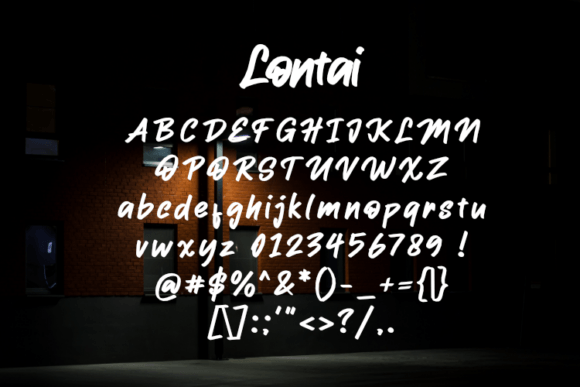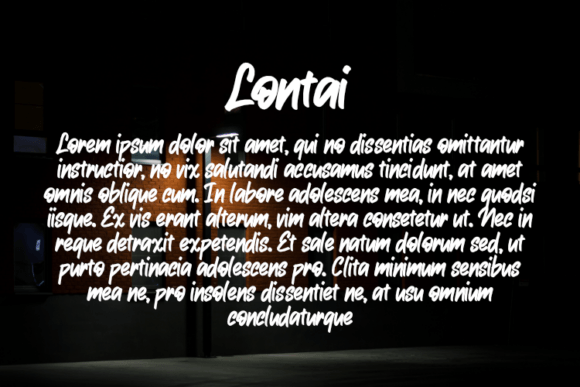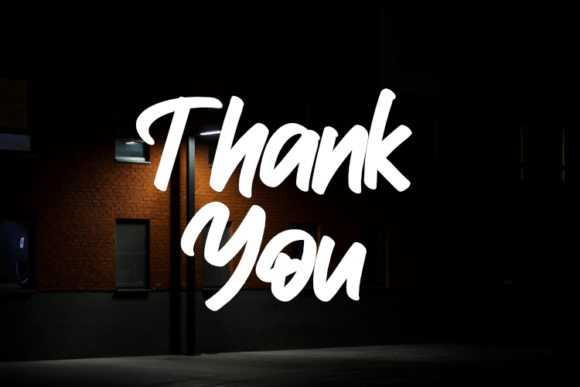
Introduction to Lontai Font
Have you ever stared at a blank canvas, wondering how to bring your creative vision to life? The moment of clarity strikes, and suddenly, your imagination is flooded with ideas. It’s that spark that drives designers like you to create something truly remarkable. And when it comes to fashioning unique apparels, there’s one font that stands out from the rest – the Lontai Font.
This high-quality font is a game-changer for designers looking to elevate their creative projects. With its versatility and ease of use, Lontai Font is the perfect design resource for crafting visually stunning designs that speak a language of their own. Whether you’re working on a t-shirt design or a diverse product, this font flawlessly complements all software, making it a valuable asset for any designer.
Key Features of Lontai Font
- High-quality design: Lontai Font is a professional font designed for creative projects, offering a unique and stylish aesthetic.
- Unique characteristics: Lontai Font features a distinctive, hand-drawn style with intricate details, making it perfect for creative projects that require a personal touch.
- Perfect for creative projects: Whether you’re working on a branding project, a poster, or a website, Lontai Font is an excellent choice for designers looking for a high-quality design resource.
Honest Review: Lontai Font
I recently stumbled upon the Lontai Font, and I must say it’s been a game-changer for my creative project. As a designer, I’m always on the lookout for high-quality design resources that can elevate my work, and this font definitely delivers.
The Lontai Font has a unique and elegant aesthetic that works beautifully for a wide range of designs. Here are some things that work well:
- ✨ Beautifully crafted letterforms that add a touch of sophistication to any design
- ✨ Highly versatile font that can be used for various creative projects, from logos to typography
- ⚠️ Not suitable for designs requiring bold or condensed typography
Overall, I’m really impressed with the Lontai Font, and I would definitely recommend it to designers looking for a high-quality design resource. Its transparent background and free download make it an excellent choice for creative projects. With a little creativity, this font can add a touch of elegance to any design.
The Lontai Font is versatile and can be used in a variety of creative projects, including logos, brochures, business cards, and more. Its high-quality design and transparent background make it an ideal choice for designers and non-designers alike.